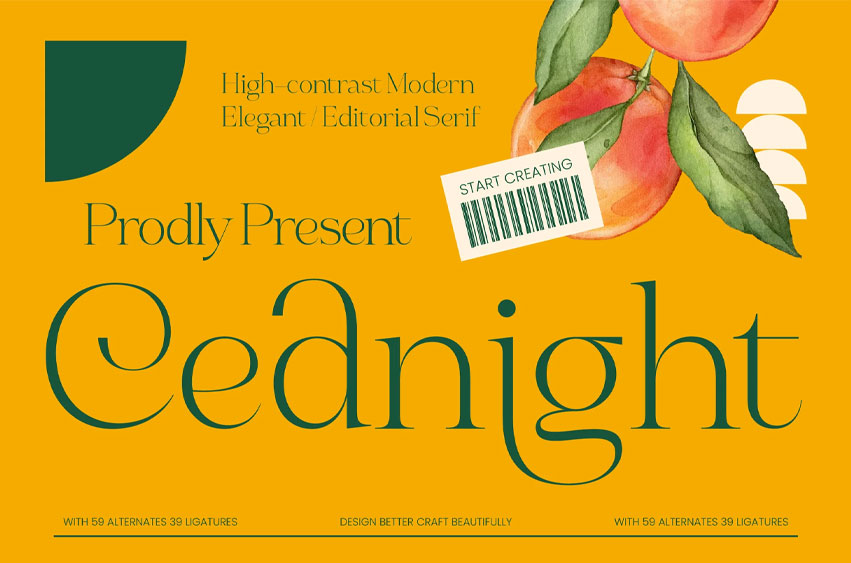
Cednight Font High-Contrast Modern Serif Elevate your design projects with the sophisticated allure of Cednight – High-Contrast Modern Serif. This typeface embodies timeless elegance and modern refinement, featuring dramatic stroke transitions that command immediate attention. It is a high-contrast serif meticulously designed to provide a luxurious aesthetic for contemporary creators who demand excellence in typography. By blending classic letterforms with sleek finishes, Cednight – High-Contrast Modern Serif offers a distinguished personality that stands out in any high-end visual composition.
Experience unparalleled creative flexibility with a comprehensive suite of premium typographic features. Equipped with over 59 stylistic alternates and 39 unique ligatures, this typeface allows for bespoke character combinations that feel custom-made. With its extensive multilingual support, Cednight – High-Contrast Modern Serif adapts seamlessly across global markets, making it incredibly versatile for international projects. Whether you are crafting a distinctive brand identity or a high-impact headline, Cednight – High-Contrast Modern Serif provides the technical precision required for professional-grade design.